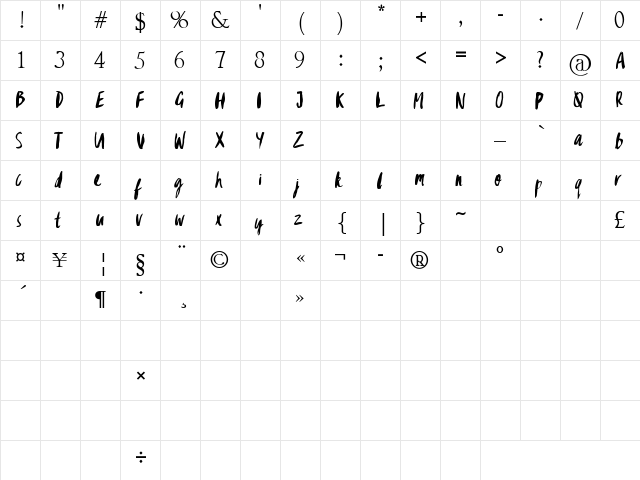
Gypsy Brush Regular
| Designer | Zaffar Sabbir |
Design Context for Gypsy Brush Typeface
Gypsy Brush brings a calligraphic fluidity to the page — its connecting strokes and expressive curves give it an unmistakably human quality.
Font Pairing: Combine Gypsy Brush with a simple geometric sans for maximum contrast — the tension between flowing curves and clean structure is a classic typographic pairing.
Pro Tip: Use Gypsy Brush for short runs of text — names, titles, or taglines. Extended body copy in script faces tires the eye quickly.